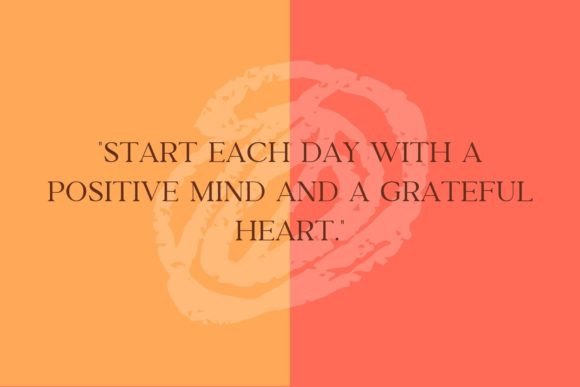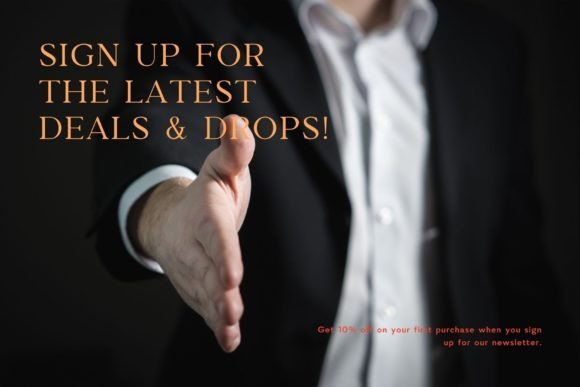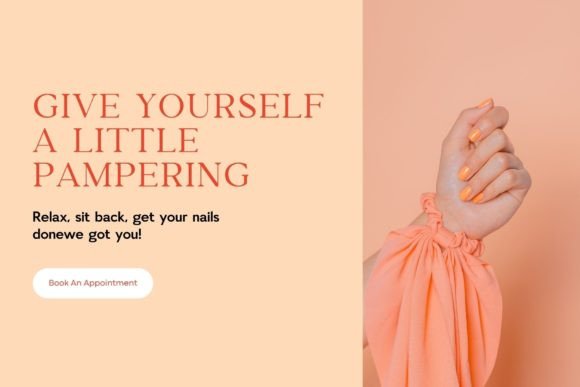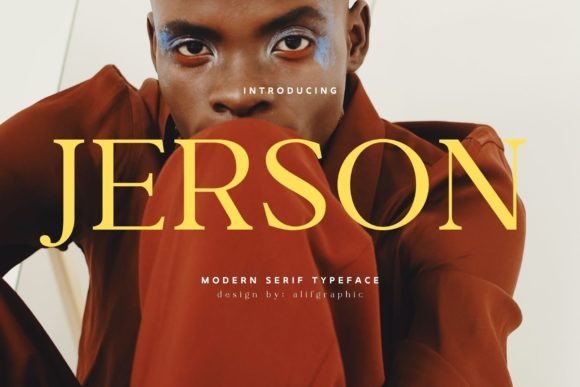
Introduction to Jerson Font
Introducing β€œJerson” – a modern serif font that effortlessly blends sophistication with contemporary style.
With clean lines and a timeless appeal, Jerson is perfect for projects seeking a balance between classic and modern aesthetics Whether you’re crafting elegant invitations, professional documents, or stylish branding, Jerson’s versatile and refined design makes it a go-to choice for adding a touch of class to your typography.
Key Features of Jerson Font
Why Choose Jerson Font?
Jerson Font offers exceptional quality and versatility, making it a valuable addition to your design toolkit. Whether you’re creating for personal projects or commercial use, Jerson Font delivers professional results.